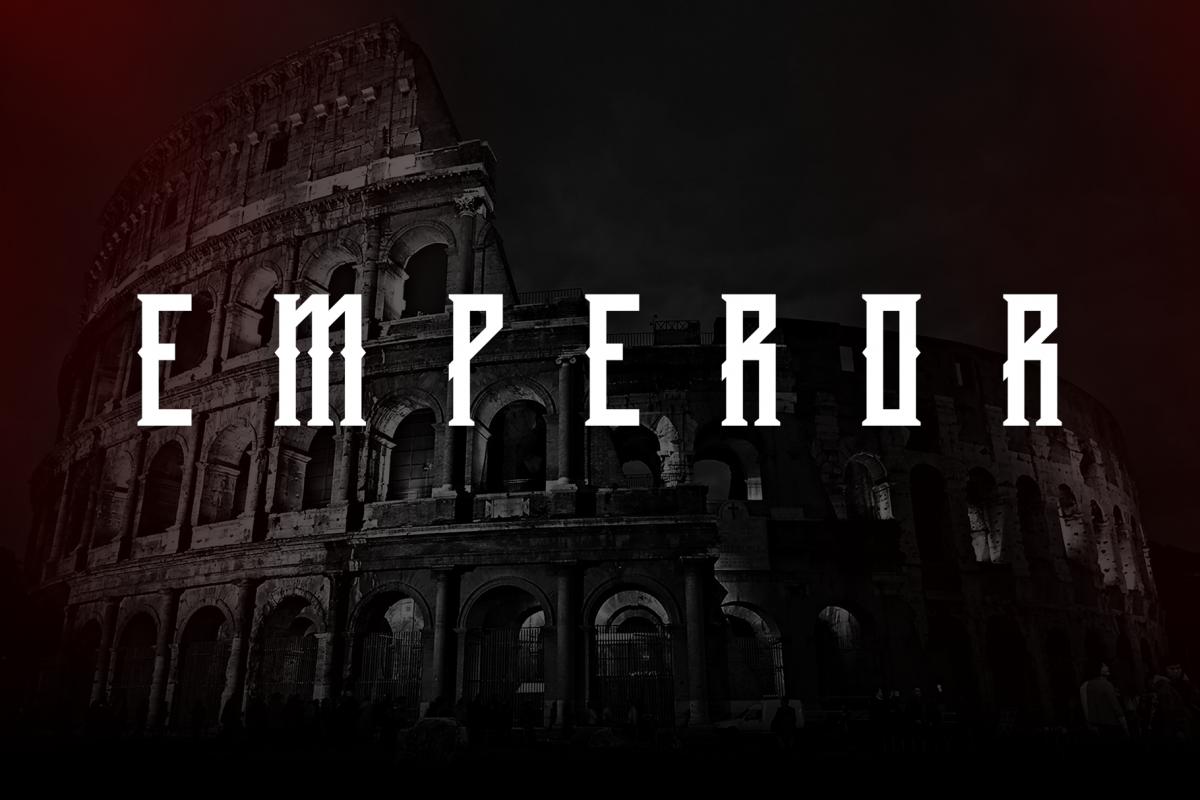
Emperor Display Typeface
Emperor is a contemporary display typeface stimulated with the geometric shapes and fluidity of modern typefaces. The aesthetics have proven to work well in most layouts, contexts and is accompanied with uppercase and multi-lingual letters.